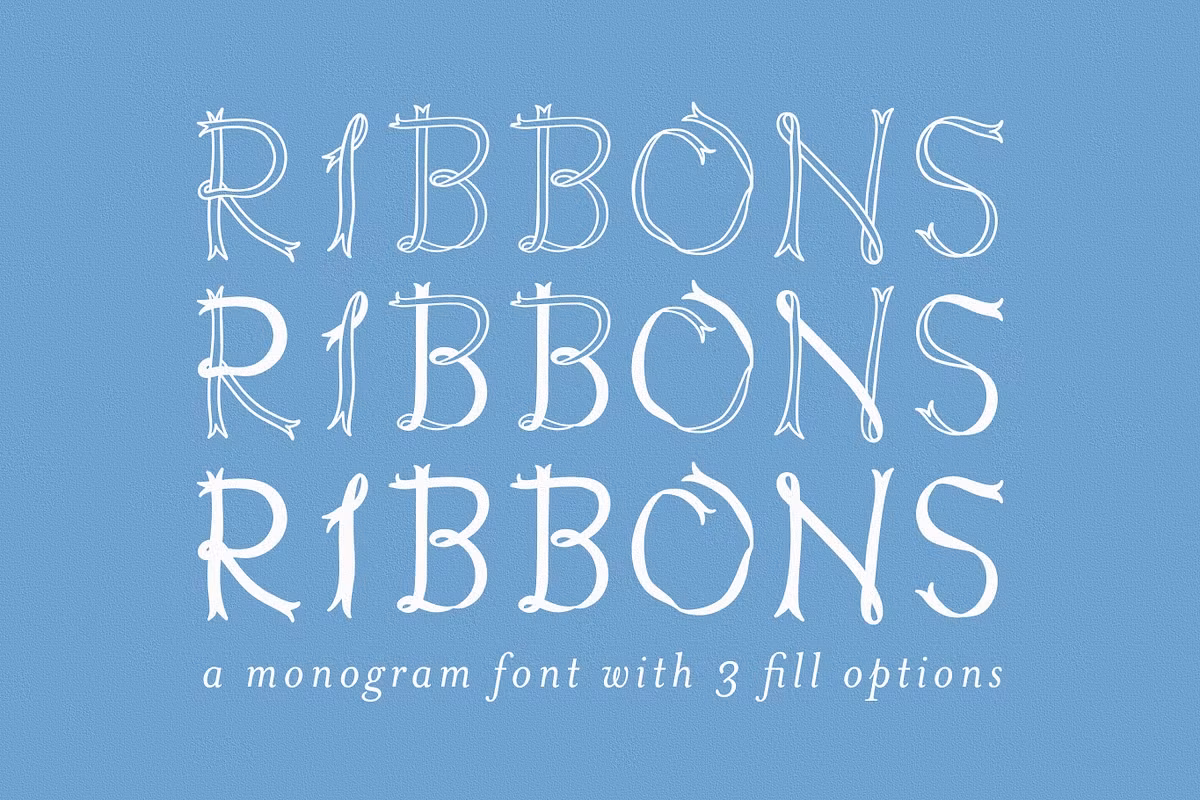
Ribbons Monogram Font Free Download is a decorative and charming typeface designed to add a personalized, handcrafted feel to your projects. Inspired by elegant ribbon-like curves, this font is ideal for monograms, wedding stationery, personalized gifts, and boutique branding. Its ornate letterforms create a sophisticated, timeless impression that stands out in both digital and print formats.
Perfect for designers who want to create custom initials or logos with a romantic flair, Ribbons Monogram brings creativity and class together in one stylish font. With a wide range of alternates and ligatures, your designs will feel truly unique.